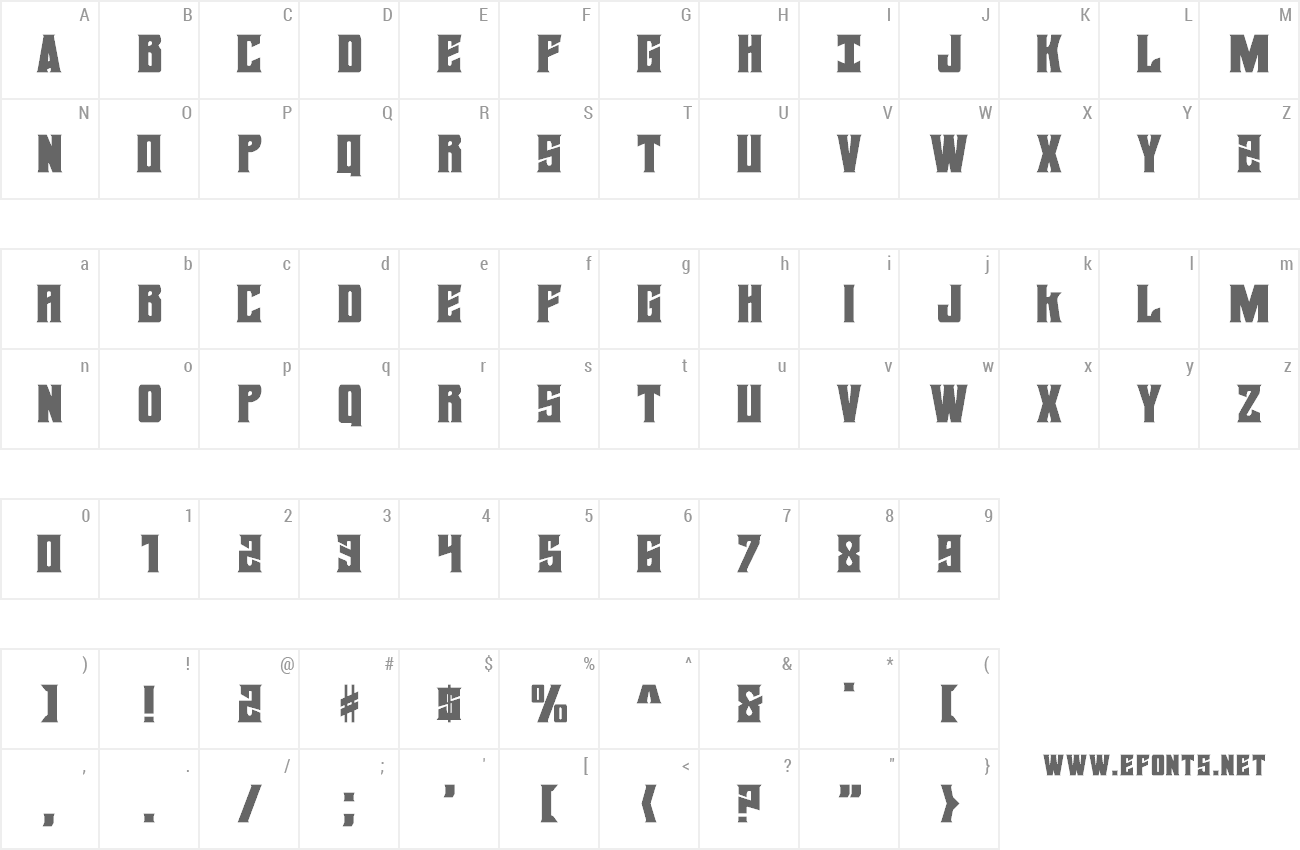
| Font name: | Daemonicus |
a bold title-display font that evokes a sense of regalness and dark majesty. Comes with a full Latin character set and there are a number of alternate letter forms between the upper and lower cases. For information on commercial usage, please visit www.iconian.com/commercial.html |